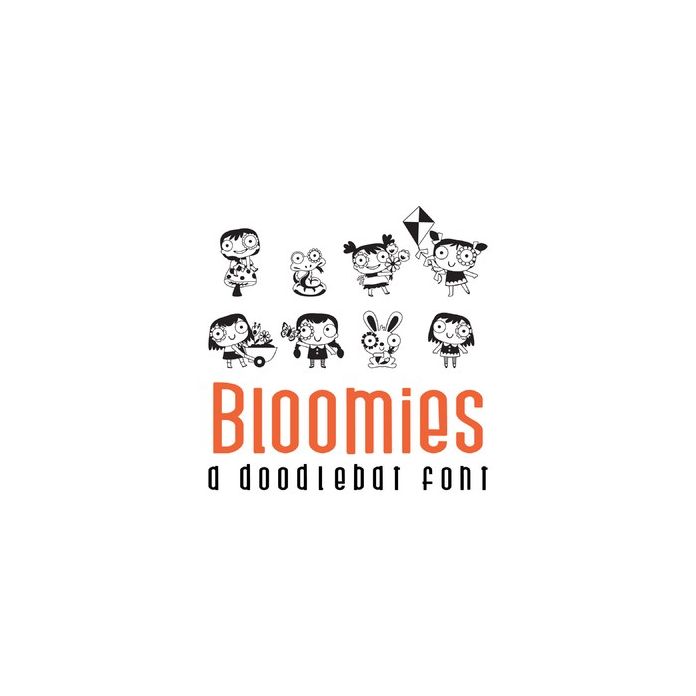
These adorable characters are in full bloom and ready for spring. Get 26 different Bloomie Characters perfect for cards, crafts, decor, planner stickers, scrap book pages, gifts and more!